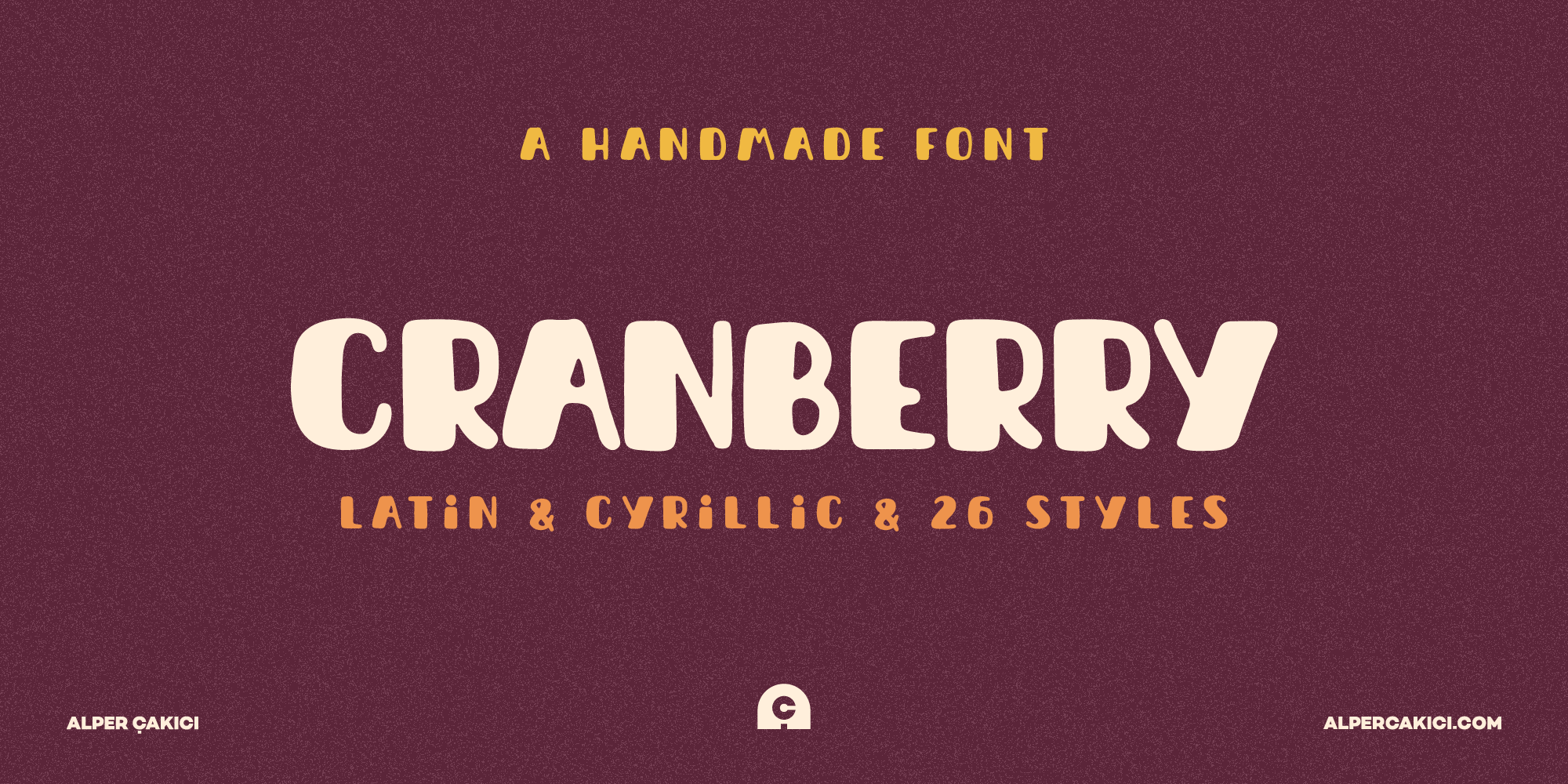
Cranberry Font is perfect for branding projects, logo design, wedding invitations, restaurant menus, book covers, poster design, packaging design, social media graphics, website headers, and creative advertising campaigns. This versatile typeface works exceptionally well for both digital and print applications.
What makes Cranberry Font exciting is its unique blend of modern sophistication and organic warmth. The letterforms feature subtle curves and distinctive character shapes that create visual interest while maintaining excellent readability. Its carefully crafted design elements make it stand out from conventional fonts, offering designers a fresh alternative that commands attention without sacrificing professionalism.
Cranberry Font comes in multiple font families including Regular, Bold, Light, Italic, Bold Italic, and Condensed variations. Each family member maintains the distinctive character of the original design while offering different weights and styles to suit various design needs and hierarchical requirements.
Whether you're working on corporate branding, editorial design, or creative projects, Cranberry Font Free Download provides the versatility and visual impact needed to elevate your typography. The font's contemporary aesthetic combined with its practical functionality makes it an excellent choice for designers seeking to create memorable and engaging visual communications across all media platforms.